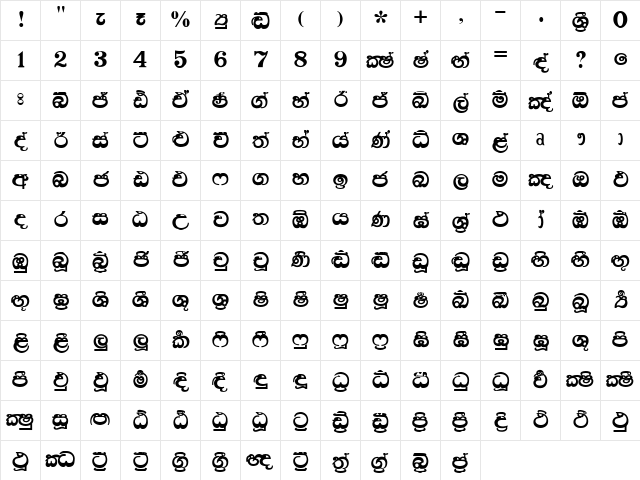
aKandyNewSupplement Regular
Design Context for aKandyNewSupplement
aKandyNewSupplement is a composed and adaptable typeface that performs quietly and consistently across a wide range of design contexts.